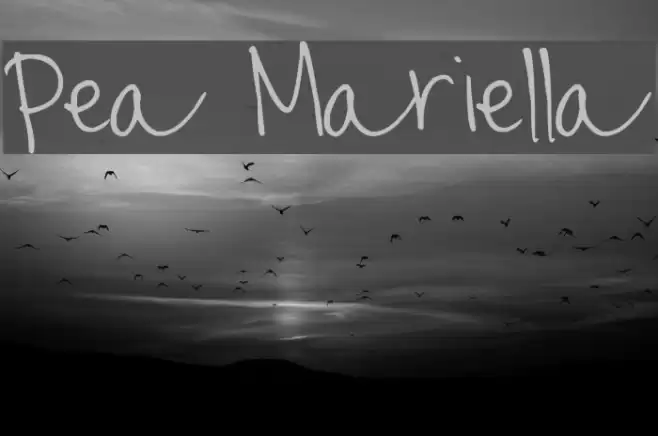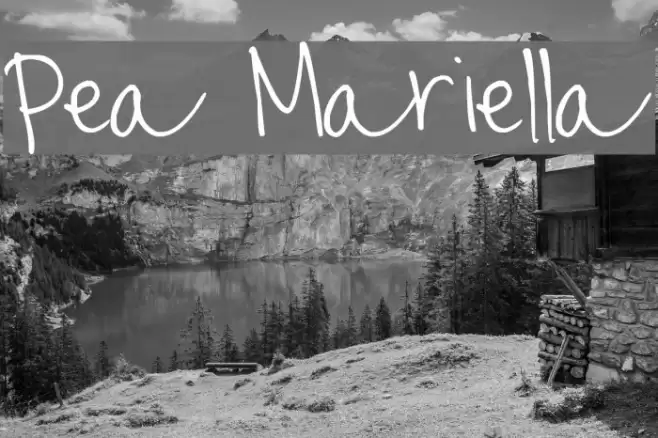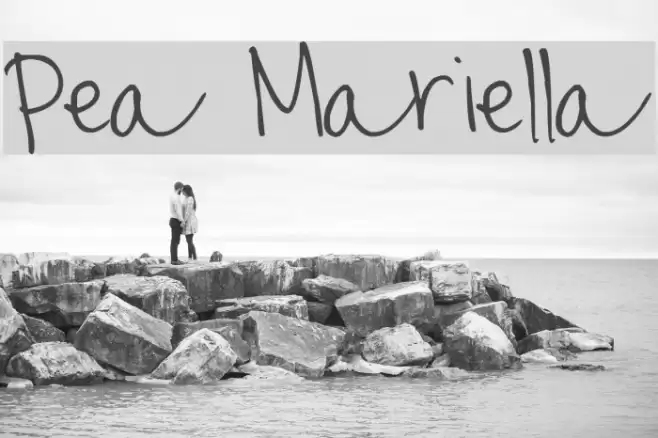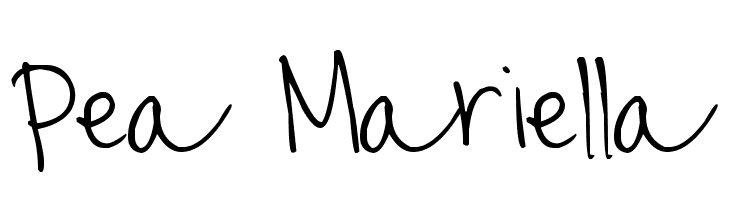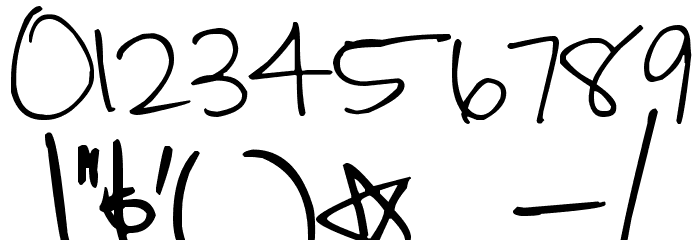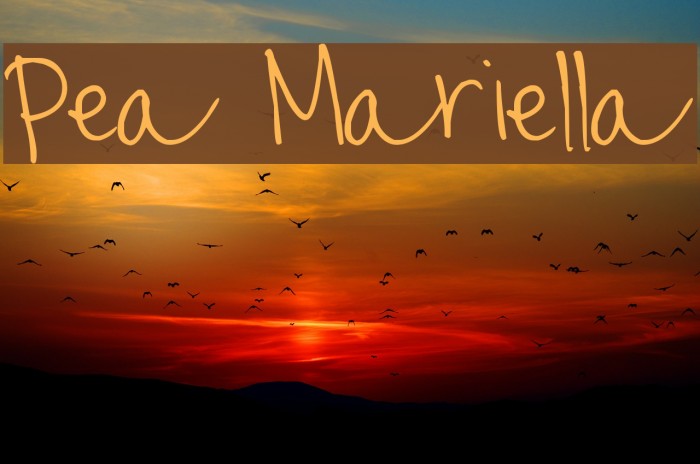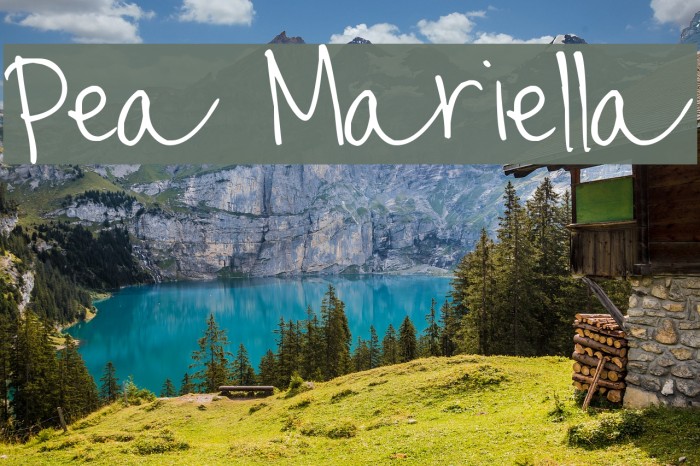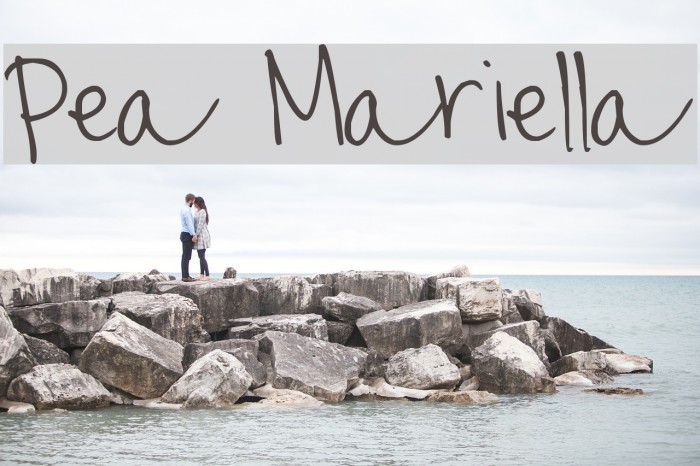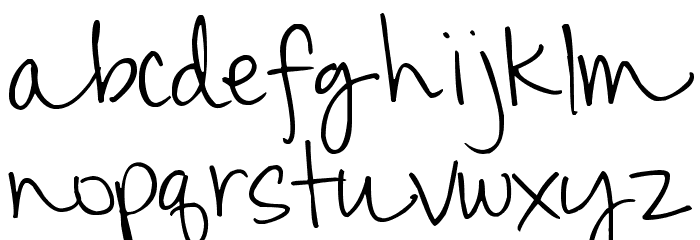
Pea Mariella Font
Pea Mariella Description
This font features a playful and casual handwritten style, characterized by its loose and flowing strokes. The letters are slightly irregular, giving it an authentic and personal touch, reminiscent of a quick, informal note. The uppercase letters are bold and slightly larger than the lowercase, maintaining a consistent flow throughout. Numbers and special characters follow the same informal style, adding to the font's charm. Its overall appearance is friendly and approachable, making it suitable for projects that require a personal or creative touch.
A playful, casual handwritten font with loose, flowing strokes from Uncategorized fonts.
- Proposed Projects: Ideal for personal notes, creative projects, invitations, greeting cards, and informal branding.
- Overall Style: Casual, Playful
- Use Case: Logos, Invitations, Greeting Cards